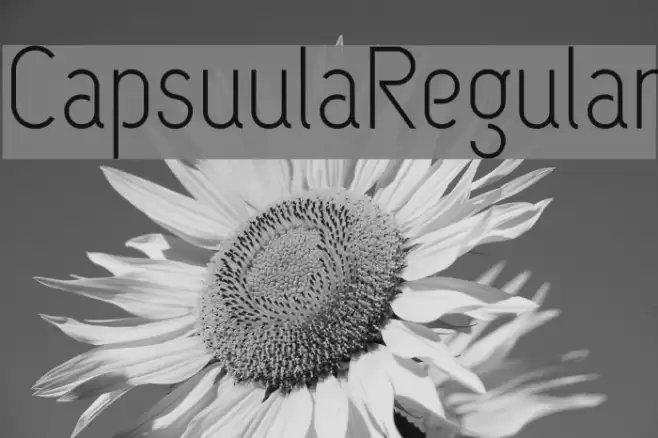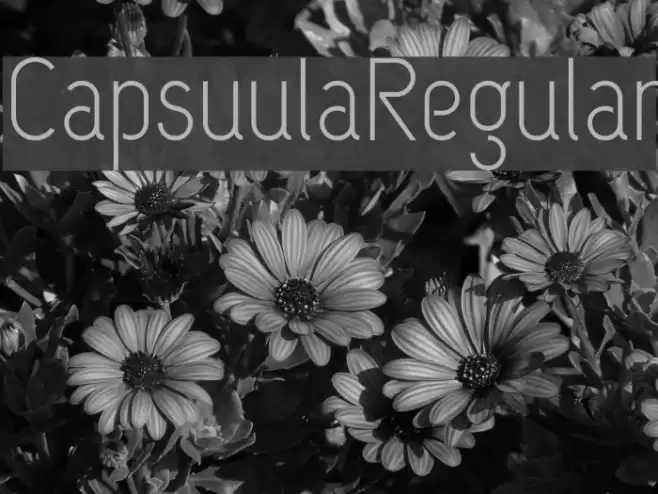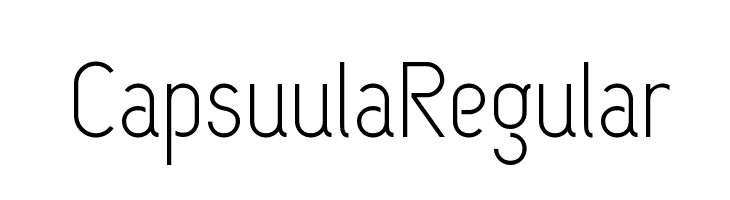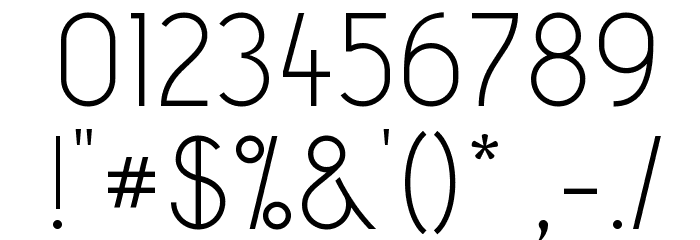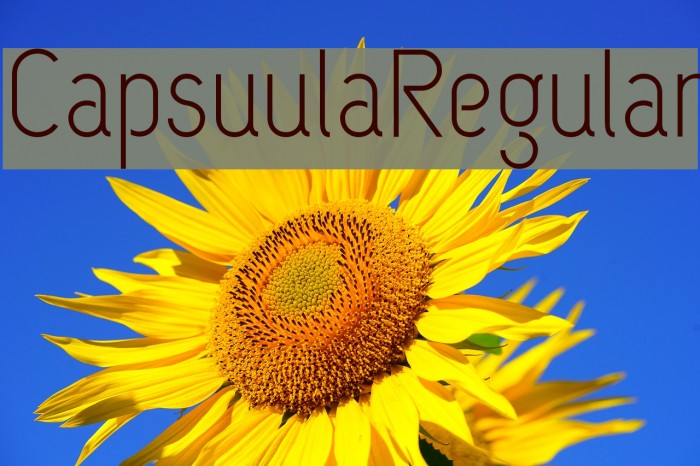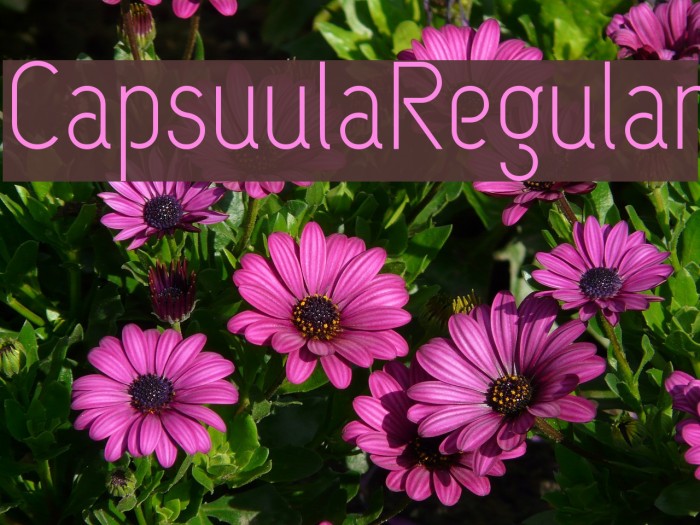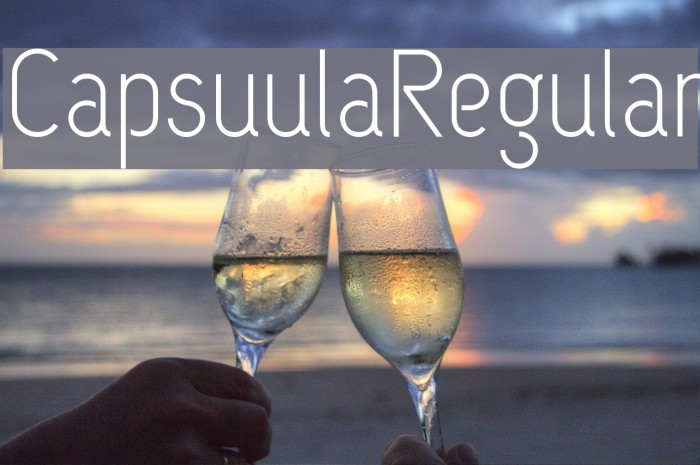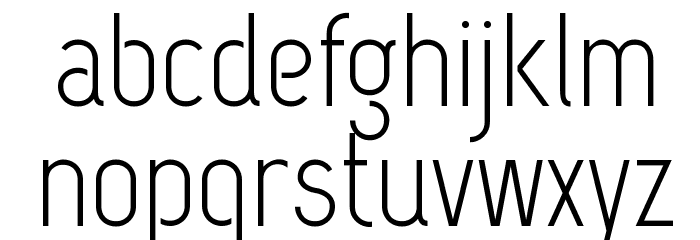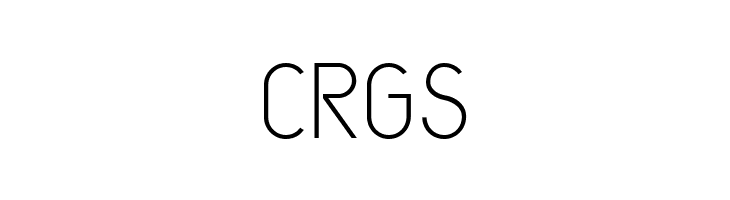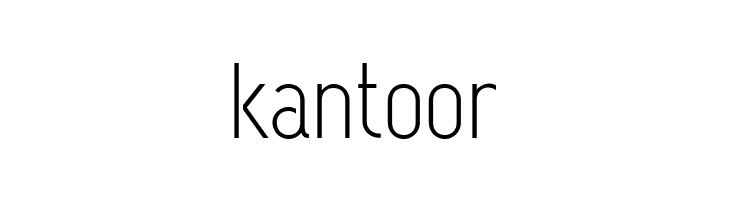
CapsuulaRegular Font
CapsuulaRegular Description
This font features a clean and modern design with a geometric structure. The characters are tall and narrow, giving it a sleek and contemporary appearance. The strokes are uniform in thickness, providing a consistent and balanced look. The font includes both uppercase and lowercase letters, numerals, and a range of special characters. Its simplicity and clarity make it highly legible, suitable for a variety of design applications. The rounded edges add a touch of softness, making it approachable and friendly while maintaining a professional feel.
A modern, geometric font with tall, narrow characters and uniform strokes from Uncategorized fonts.